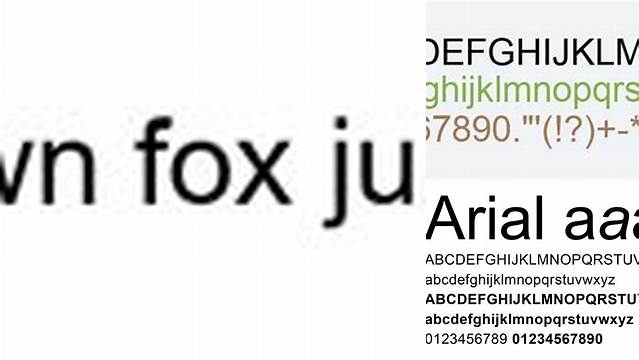
Arial Normal Font: Free Downloads, Tips, And Alternatives
Hey guys! Ever found yourself needing that perfect, clean font for a project? Chances are, Arial Normal has crossed your path. It's like the reliable friend in the font world—always there, always readable, and always gets the job done. But finding a legitimate, safe, and free download? That can be a bit of a maze. Let's navigate it together!
What is Arial Normal?
Arial Normal is a ubiquitous sans-serif typeface designed by Patricia Saunders and Robin Nicholas in 1982 for Monotype Typography. It was commissioned by IBM and eventually licensed to Microsoft. What makes Arial so popular? Its clarity and legibility across various sizes and platforms. It's a go-to for everything from body text in books to headings on websites. Arial is characterized by its relatively uniform stroke weight, vertical terminals, and the slightly angled cuts on letters like 'c', 'e', and 's'. This gives it a contemporary, yet neutral appearance, making it suitable for a wide range of applications. Compared to Helvetica, another popular sans-serif, Arial has softer curves and a more open appearance, which many find easier on the eyes for extended reading. Its widespread availability as a standard font in Windows operating systems has further cemented its place in the design world.
Arial vs. Helvetica: What’s the Deal?
Okay, so why all the fuss when Arial looks so much like Helvetica? Well, while they may seem like twins, there are subtle differences. Arial has slightly more rounded terminals and a more open overall feel. Design nerds (like me!) can spot the difference instantly. For everyday use, though, they're often interchangeable. But knowing the nuances can help you choose the right font for the right project. For instance, Helvetica is often preferred in branding for its perceived neutrality and modernity, while Arial might be chosen for its slightly friendlier appearance in body text. The choice ultimately depends on the specific aesthetic and functional requirements of the design.
Why is Arial Normal so Popular?
Arial Normal’s popularity is a mix of accessibility and usability. It comes pre-installed on most Windows computers, making it readily available. Plus, it’s super readable in various sizes, making it a safe bet for everything from documents to web design. Its clean, sans-serif design makes it versatile for different types of projects. But, hey, just because it's popular doesn't mean it's always the best choice. Think about the message you're trying to convey. Sometimes, a more unique font can add that extra oomph! But for clarity and widespread compatibility, Arial Normal is hard to beat. Its neutrality also makes it a great choice for projects where the content, rather than the typography, needs to take center stage.
Using Arial Normal for Web Design: Best Practices
Using Arial Normal on the web? Great choice! It’s widely supported and renders well across different browsers and devices. However, there are a few best practices to keep in mind. First, use CSS to specify Arial as a font in your stylesheets. Always include fallback fonts in case Arial isn't available on the user's system. For example: font-family: Arial, sans-serif;
Conclusion: Arial Normal - A Timeless Font
So, there you have it! Arial Normal: the workhorse of fonts. It might not be the flashiest, but it's reliable, readable, and gets the job done. Whether you're crafting a resume, designing a website, or just writing a simple document, Arial Normal is a solid choice. Just remember to download it safely and use it wisely! Happy designing, folks!